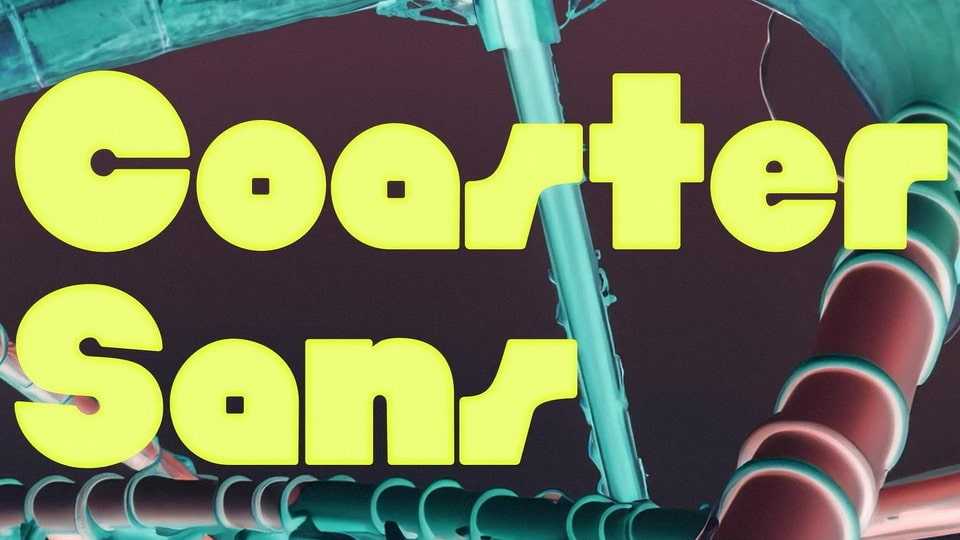
Download Coaster Sans font, a new chunky display typeface that will make you feel like you’re riding the waves back home. Coaster Sans font is crafted with bold strokes and distinct geometric shapes, evoking the retro vibe of vintage typography while maintaining a contemporary edge.
Designer: Mother Type